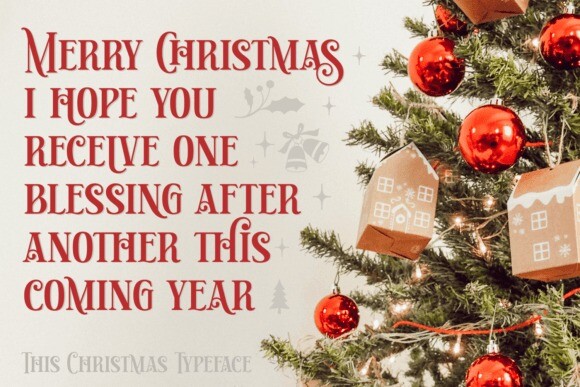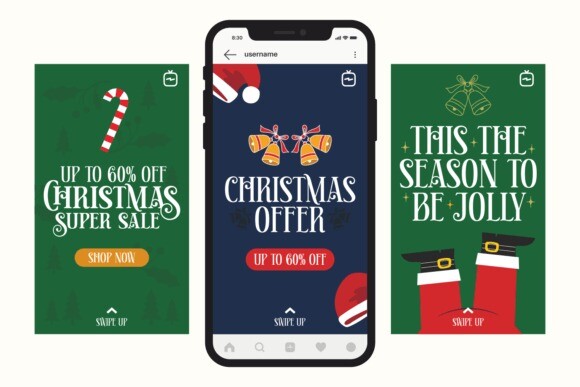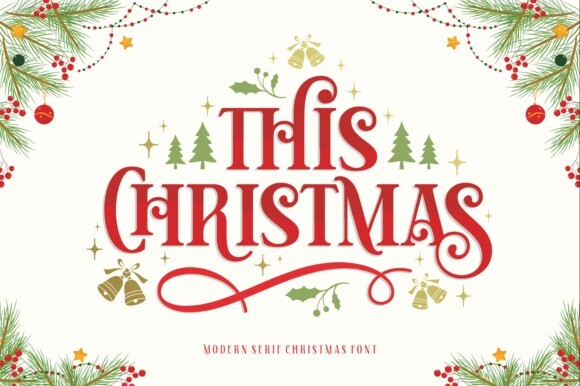
This Christmas Font
This Christmas Font, is the perfect blend of festive charm and modern flair. With playful curls and sleek lines, it captures the spirit of the season while adding a contemporary touch to your holiday creations. Spread the joy of Christmas with every letter, as This Christmas font brings a touch of merriment to your festive messages and designs.